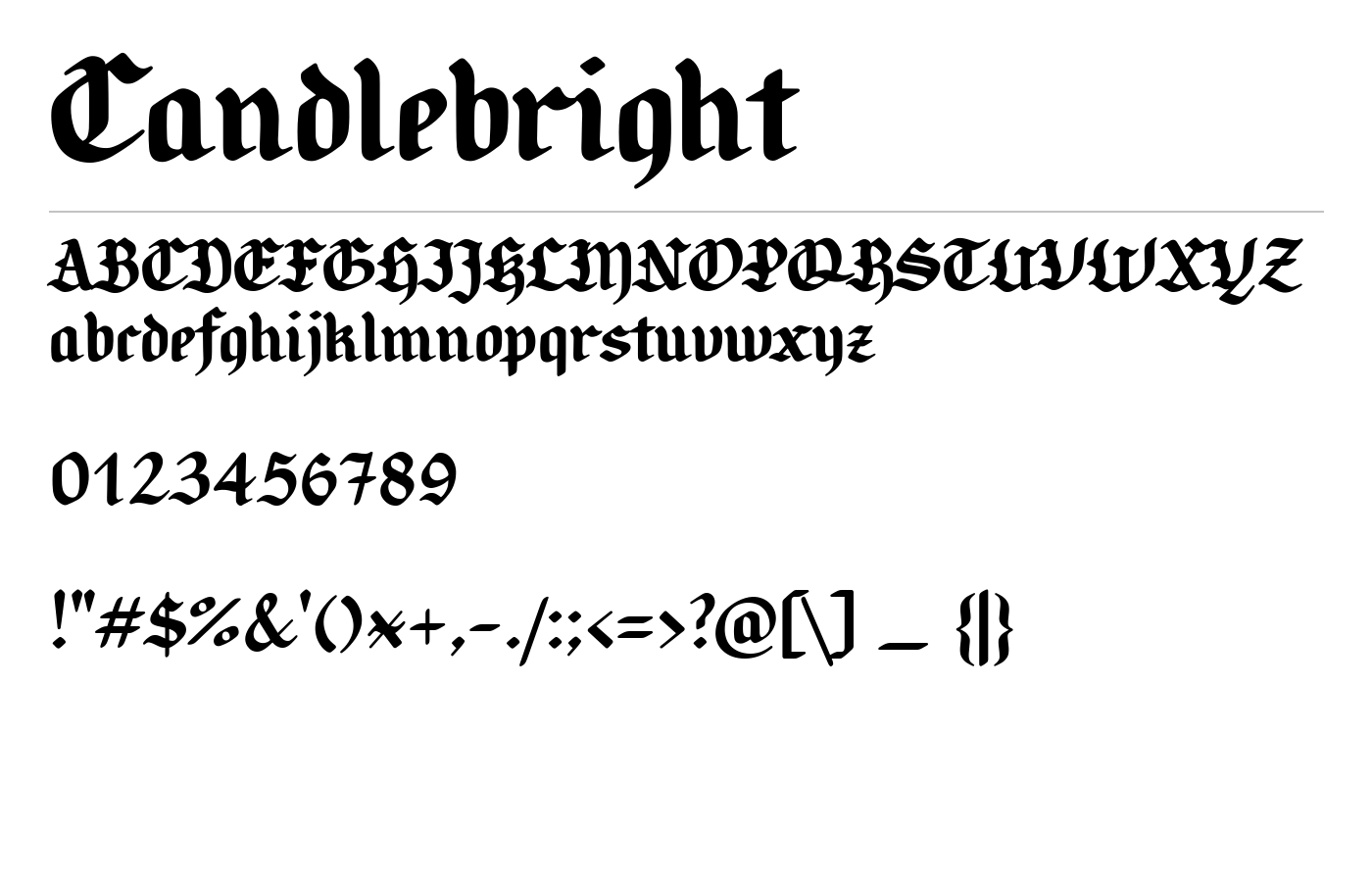
Candlebright is a bold blackletter serif font that features strong contrast between thick and thin strokes and ornate, sharp serifs, evoking a historical and Gothic feel. Its intricate letterforms and high x-height make it ideal for dramatic headlines, logos, and branding that seek a vintage or medieval aesthetic. This font works best when used to convey tradition, craftsmanship, and a sense of bold elegance.
| Font family | Candlebright Font |
| Designer | Ana Parracho |